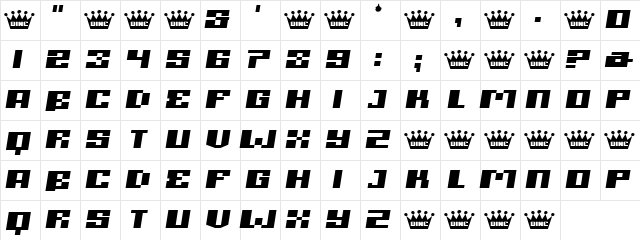
Treason Regular
Design Context for Treason
Treason is a composed and adaptable typeface that performs quietly and consistently across a wide range of design contexts.